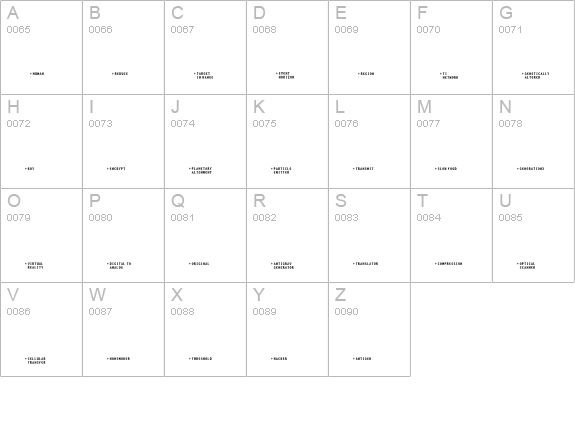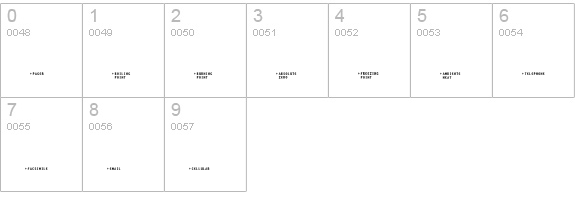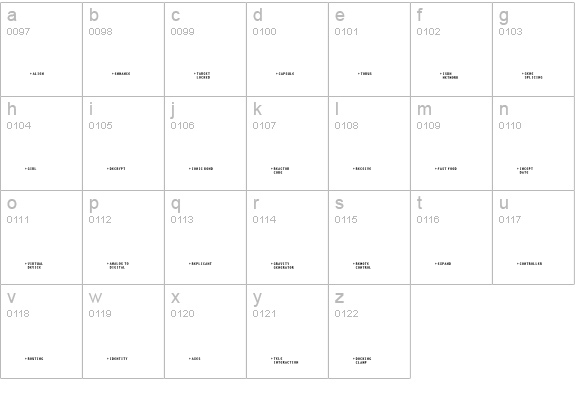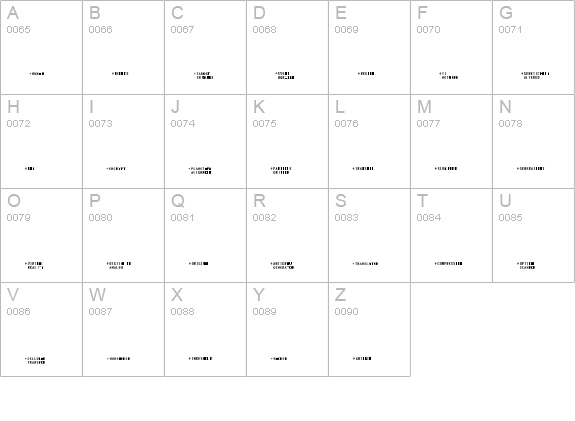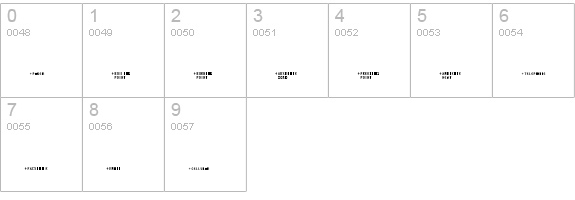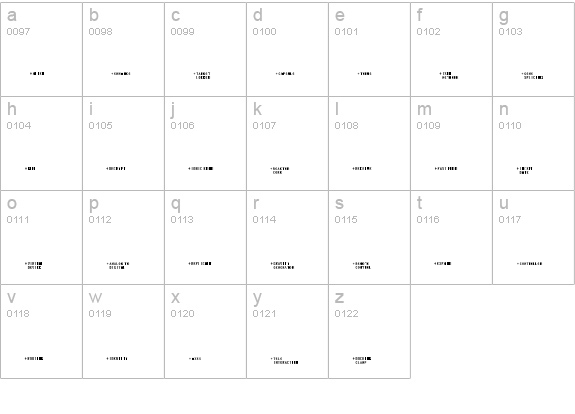
Nucleus-TwoGuide Font Details
Nucleus-TwoGuide font is a sleek and modern typeface that exudes elegance and sophistication. Its clean lines and balanced proportions make it perfect for a wide range of design projects, from branding to editorial design. The font features a unique blend of geometric shapes and sharp edges, giving it a contemporary and professional look. What sets Nucleus-TwoGuide font apart is its versatility - it works equally well in both digital and print applications. Whether you're designing a website, creating a logo, or laying out a magazine spread, this font will add a touch of sophistication to your project. Best of all, Nucleus-TwoGuide font is completely free to download at FontsMarket.com. So go ahead and elevate your designs with this stylish and versatile typeface today!